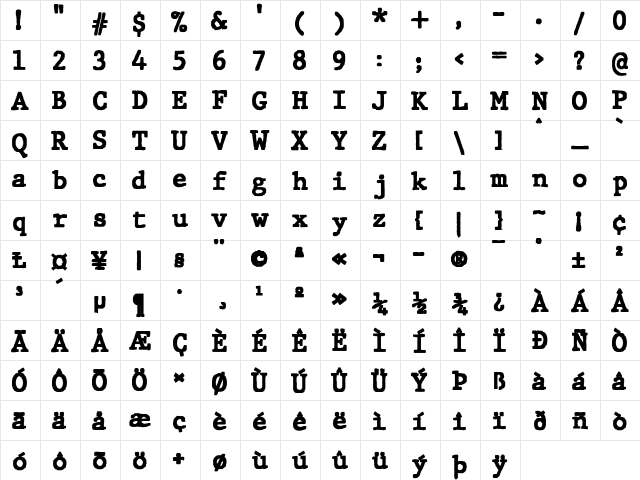
JMH Typewriter Black
Design Context for JMH Typewriter Typeface
JMH Typewriter brings the precise, column-aligned rhythm of monospaced typography to designs that value technical clarity and systematic order.
Pro Tip: Use JMH Typewriter with slightly increased line-height for extended reading — fixed-width spacing can feel dense in longer passages without extra breathing room.